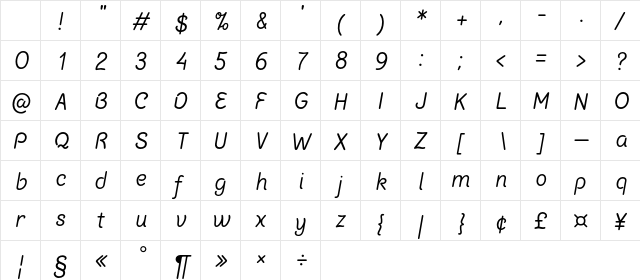
Complete Chalk Marks Italic glyph index. Displaying only characters natively supported by Chalk Marks Italic font.
Chalk Marks is a composed and adaptable typeface that performs quietly and consistently across a wide range of design contexts. The slanted form adds forward momentum and visual energy.
Pro Tip: Use Chalk Marks for emphasis, pull quotes, and subheadings where its slanted energy can add rhythm to the layout.